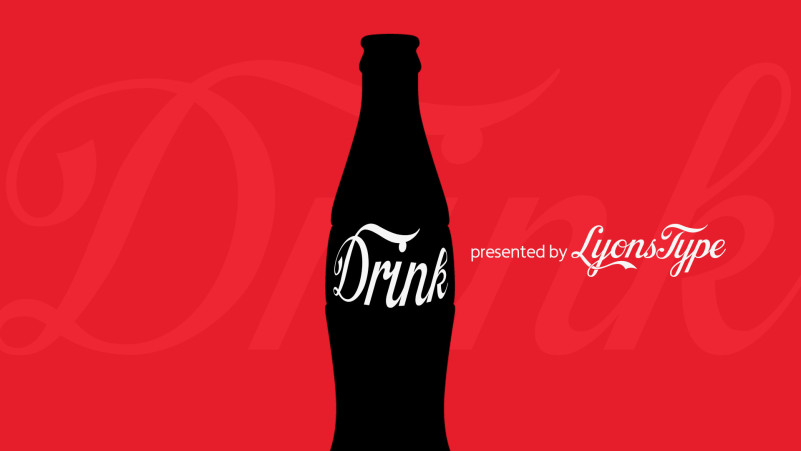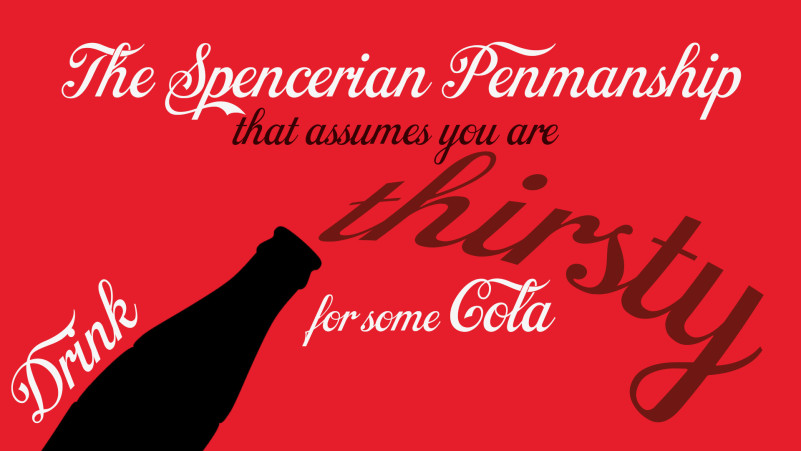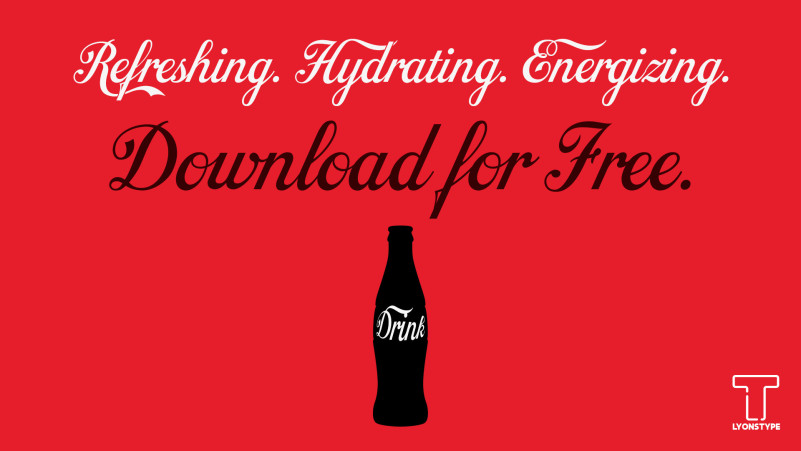
LT Drink Font
Drink Script Font is a font not only loosely based upon the Coca-Cola logotype, but is an accurate refinement of the low-quality Loki Cola font, despite that font being made in 1999. The font “Drink” can also be utilized to make your own personal Coca-Cola parodic logos, such as your name, your studio, as well as the fact it can be utilized for anything in relation to Coca-Cola or anything outside it. The personality of this font appears to be as mentioned in the specimen, “refreshing, hydrating, energizing.”